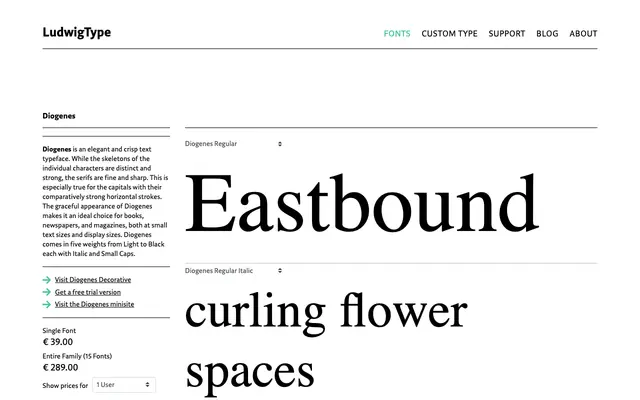
Diogenes
A text serif from Ludwig spanning five weights with matching italics and small caps throughout.
Each of the five weights from Light to Black comes with a matching italic and small caps cut, giving fifteen styles in total. That completeness makes it well suited to editorial and book work where hierarchy and long-form reading are both in play. The naming after the ancient philosopher suggests a classical disposition, though the page offers little further context about its origins or design intent.
The upright and italic cuts with small caps across five weights suggest a classic text serif tradition; the proportions and weight range are consistent with a transitional or humanist serif intended for sustained reading.